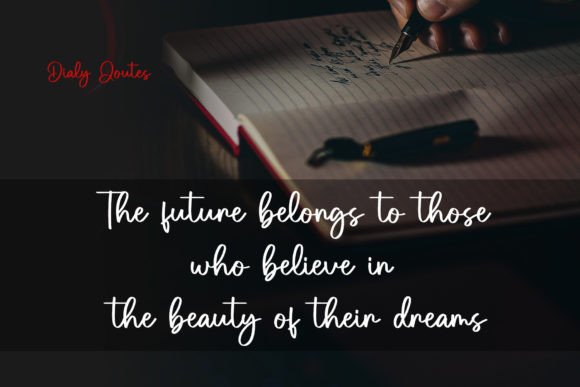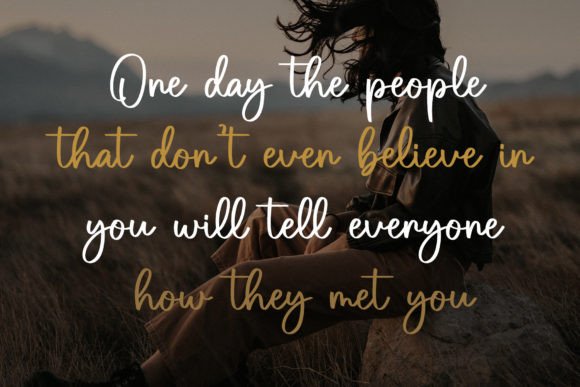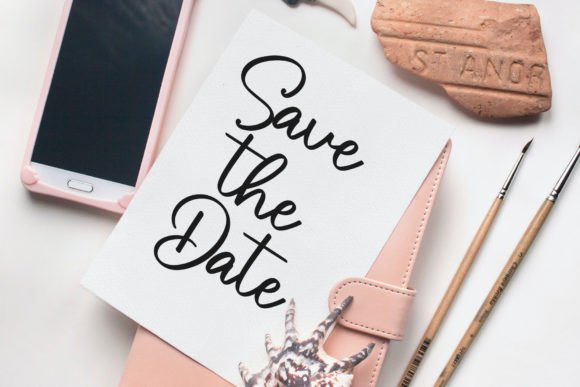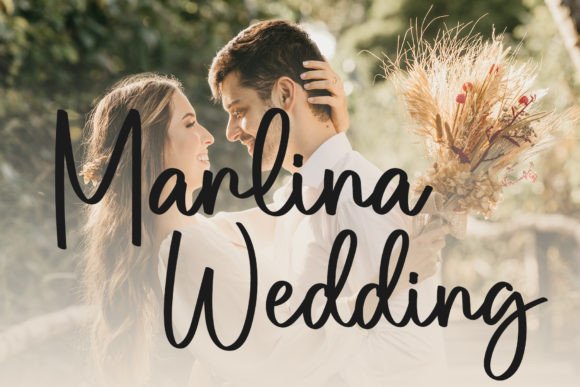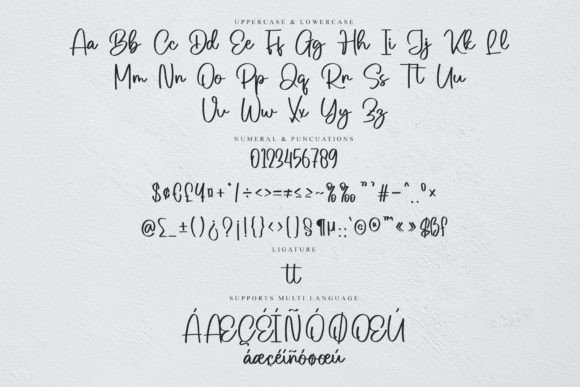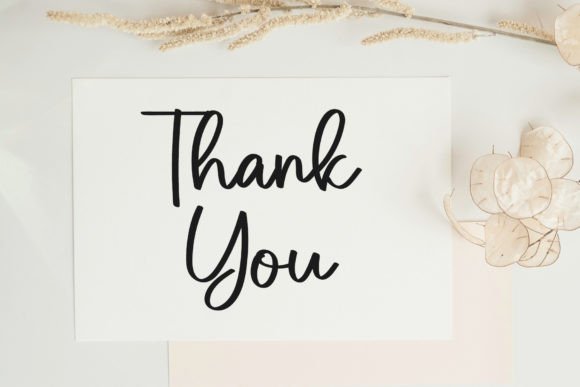
The Elusive Font: A Love Story with Breaking Surface
I still remember the frustration of working on a project, hours spent searching for the perfect font, only to come up empty-handed. My client wanted something elegant, yet playful; something that would make their brand stand out. And then, like a breath of fresh air, I stumbled upon Breaking Surface – a delicate, elegant, and flowing handwritten font that stole my heart. In this article, I’ll share my journey with this beautiful font, its features, and how you can make the most of it in your designs.
First Impressions: What I Love About Breaking Surface
So, what makes Breaking Surface so special? Here are a few things that I absolutely adore:
- ✨ Distinct and timeless style: Breaking Surface has an incredibly unique feel to it. Its elegant strokes and flowing lines make it perfect for designs that require a touch of sophistication.
- ✅ PUA encoded: This font is PUA (Private Use Area) encoded, which means you can access all the glyphs and swashes with ease. No more tedious searching for the perfect character!
- 💫 Versatility: Whether you’re working on a logo, a poster, or a social media graphic, Breaking Surface adapts seamlessly to any design.
Honest Review: The Not-Perfect-but-Almost-There Section
While Breaking Surface is an amazing font, there are a few minor quirks to be aware of:
- 🤔 Limited multilingual support: If you’re working on a project that requires a wide range of languages, you might find Breaking Surface a bit limited.
- ⚠️ Some characters may require manual adjustment: Depending on your design, you might need to tweak some characters to get the perfect spacing or alignment.
The Story Behind Breaking Surface
While the true story behind Breaking Surface might be a mystery, let’s imagine it was created by a talented designer who wanted to capture the essence of flowing water. With delicate strokes and elegant lines, this font embodies the beauty of the natural world.
| What is PUA encoding, and how does it benefit me? | PUA encoding allows you to access all the glyphs and swashes in a font, making it easier to create stunning designs. |